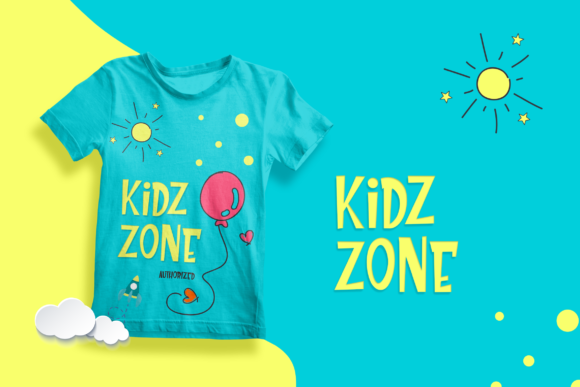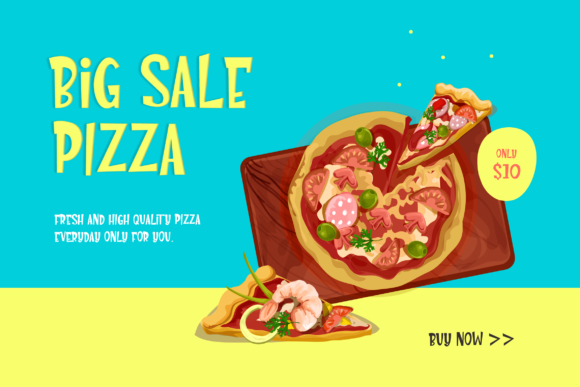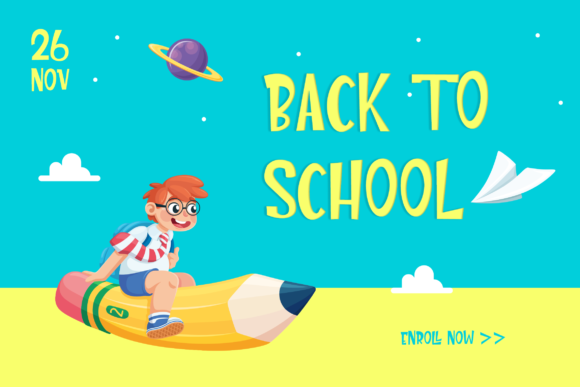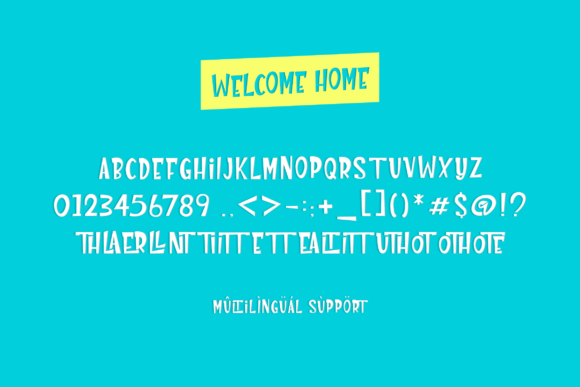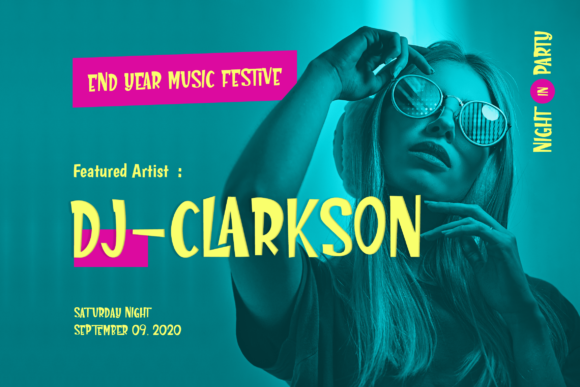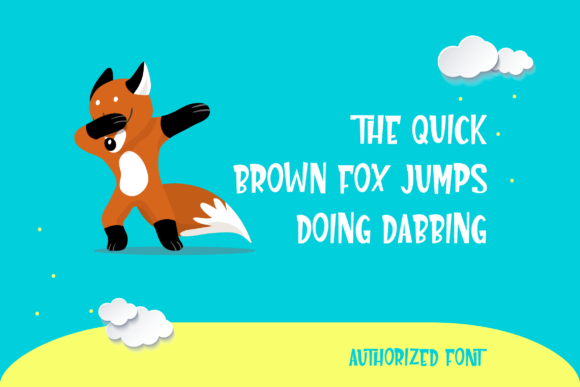
Introducing Authorized Font: The Cute and Modern Display Font You Need
Are you tired of using the same old fonts in your designs? Do you want to add a touch of joy and whimsy to your creative projects? Look no further than Authorized Font, a beautiful and modern display font that’s sure to make your designs stand out.
What is Authorized Font?
Authorized Font is a carefully crafted display font that’s perfect for designers and crafters who want to add a playful and modern touch to their work. With its clean lines, rounded edges, and adorable aesthetic, this font is sure to bring a smile to your face and make your designs shine.
The Characteristics of Authorized Font
So, what makes Authorized Font so special? Here are just a few of its key characteristics:
- Cute and Modern: Authorized Font is a font that’s both cute and modern, making it perfect for designers who want to create fresh and youthful designs.
- Display Font: As a display font, Authorized Font is designed to make a statement. It’s perfect for headlines, titles, and other prominent text elements in your designs.
- Clean Lines: The lines in Authorized Font are clean and smooth, giving it a sleek and sophisticated look that’s perfect for a wide range of design applications.
- Rounded Edges: The rounded edges in Authorized Font add a touch of whimsy and playfulness to the font, making it perfect for designers who want to create fun and engaging designs.
How to Use Authorized Font in Your Designs
Authorized Font is a versatile font that can be used in a wide range of design applications, from digital projects to print materials. Here are just a few ideas for how you can use Authorized Font in your designs:
- Headlines and Titles: Use Authorized Font to create eye-catching headlines and titles that grab attention and make a statement.
- Social Media Graphics: Add a playful touch to your social media graphics with Authorized Font. It’s perfect for creating engaging and shareable content.
- Logos and Branding: Use Authorized Font to create a unique and memorable logo or brand identity that sets you apart from the competition.
- Invitations and Stationery: Add a touch of whimsy to your invitations and stationery with Authorized Font. It’s perfect for creating fun and playful designs that make a lasting impression.
Why Choose Authorized Font?
So, why should you choose Authorized Font for your design projects? Here are just a few reasons:
- Unique and Creative: Authorized Font is a unique and creative font that’s sure to make your designs stand out from the crowd.
- Easy to Read: Despite its playful aesthetic, Authorized Font is easy to read and understand, making it perfect for designs where clarity is key.
- Versatile: Authorized Font is a versatile font that can be used in a wide range of design applications, from digital projects to print materials.
- High-Quality: Authorized Font is a high-quality font that’s been carefully crafted to ensure that it looks great in any design.
In conclusion, Authorized Font is a beautiful and modern display font that’s perfect for designers and crafters who want to add a playful and creative touch to their work. With its clean lines, rounded edges, and adorable aesthetic, this font is sure to bring a smile to your face and make your designs shine. So why wait? Download Authorized Font today and start creating amazing designs that stand out from the crowd!